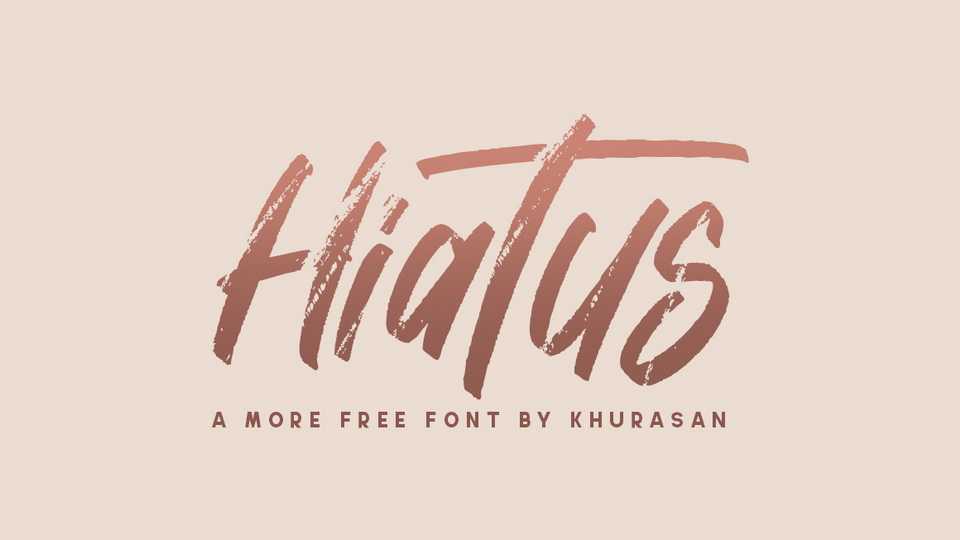
Download Hiatus font, a modern brushed and textured hand lettered typeface with a casual feel. Use Hiatus for ads, logos, branding or any other design that requires a cool look.